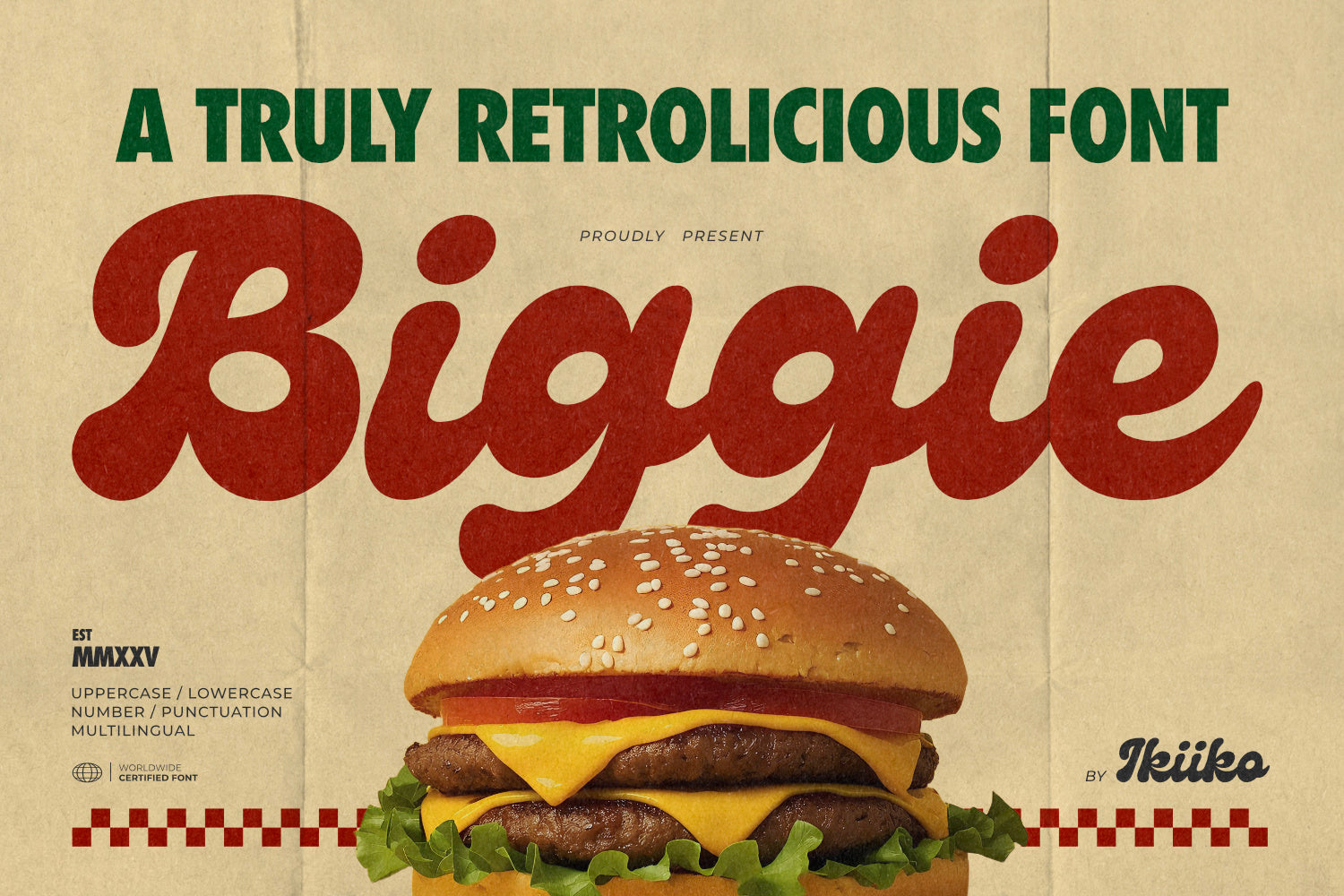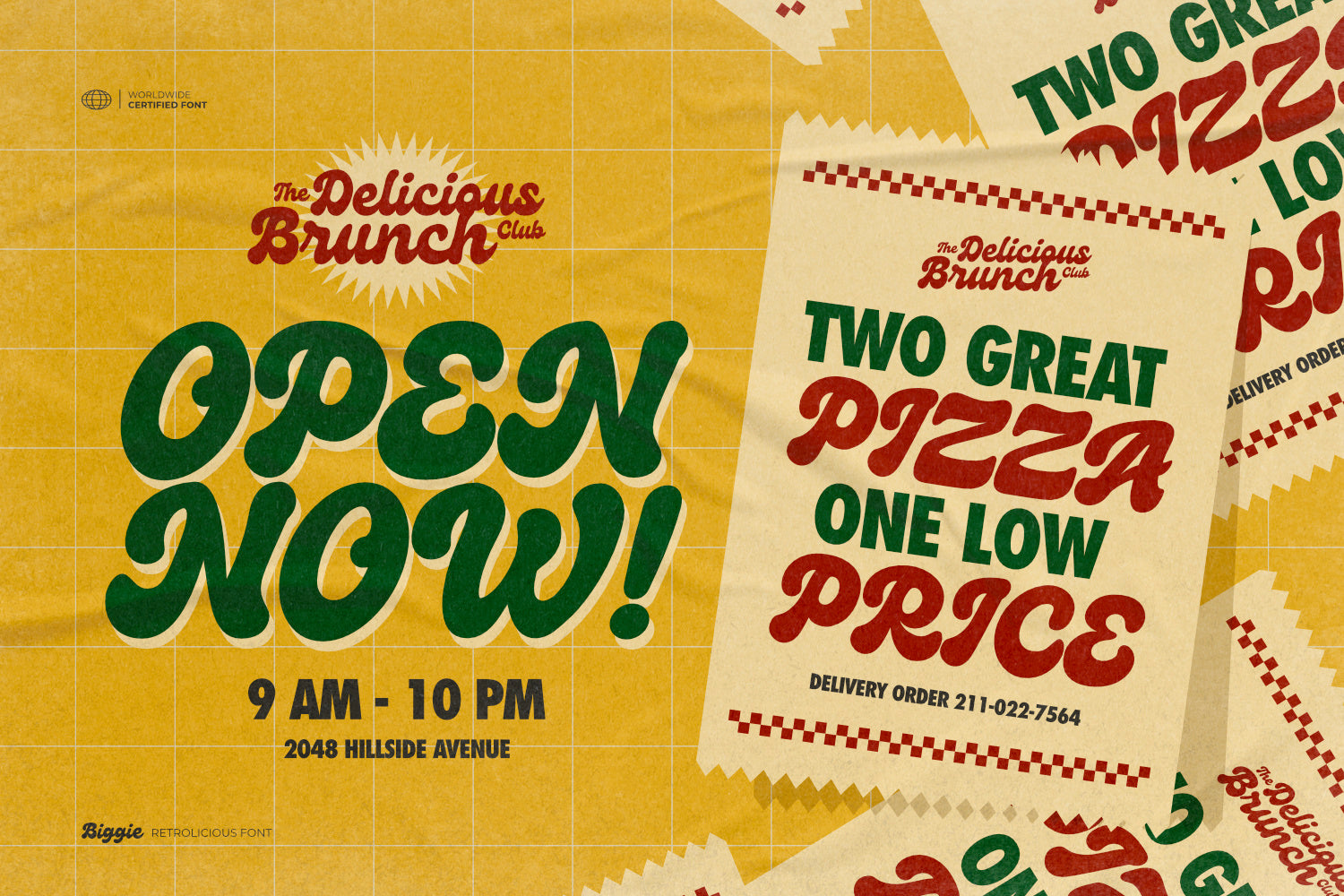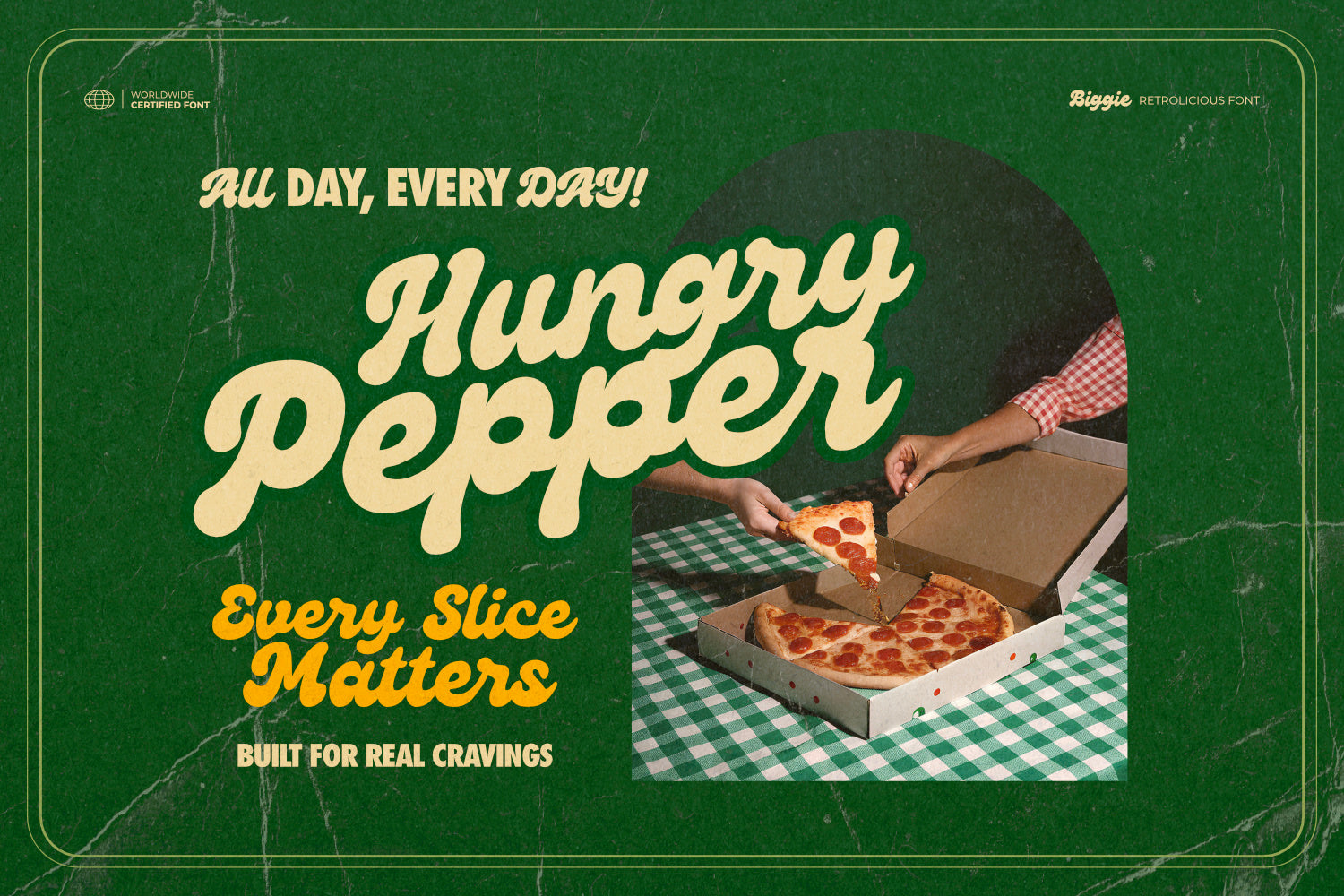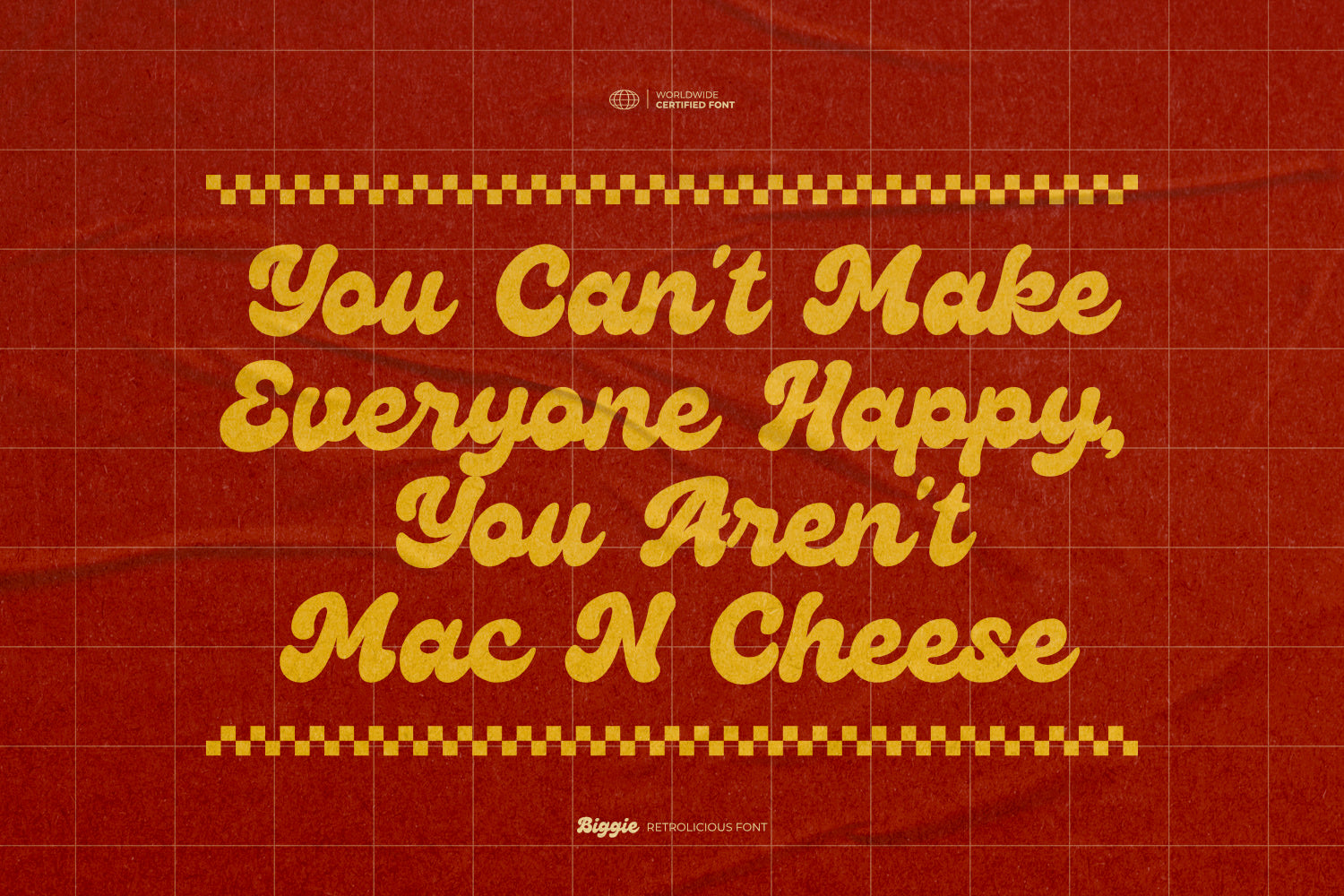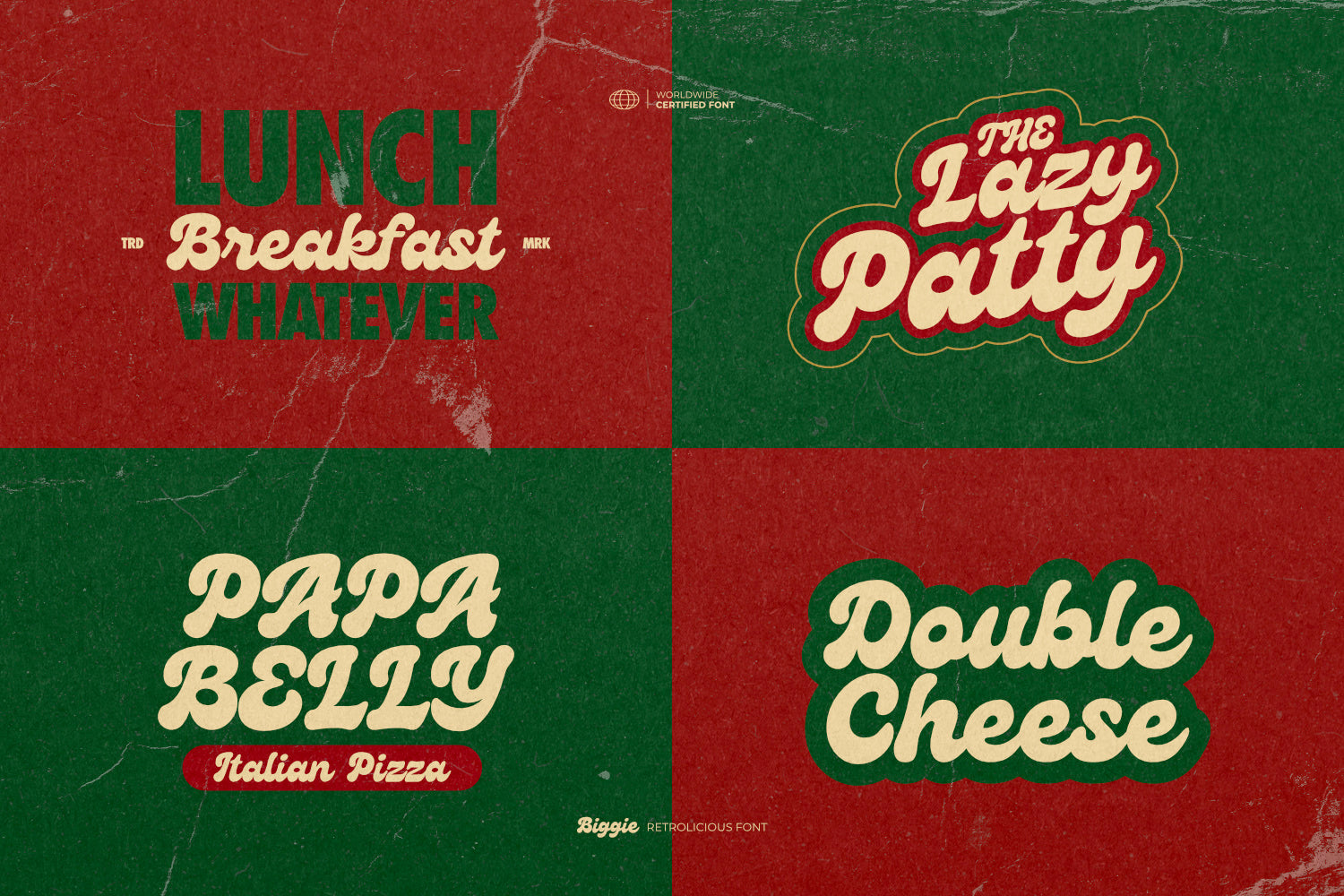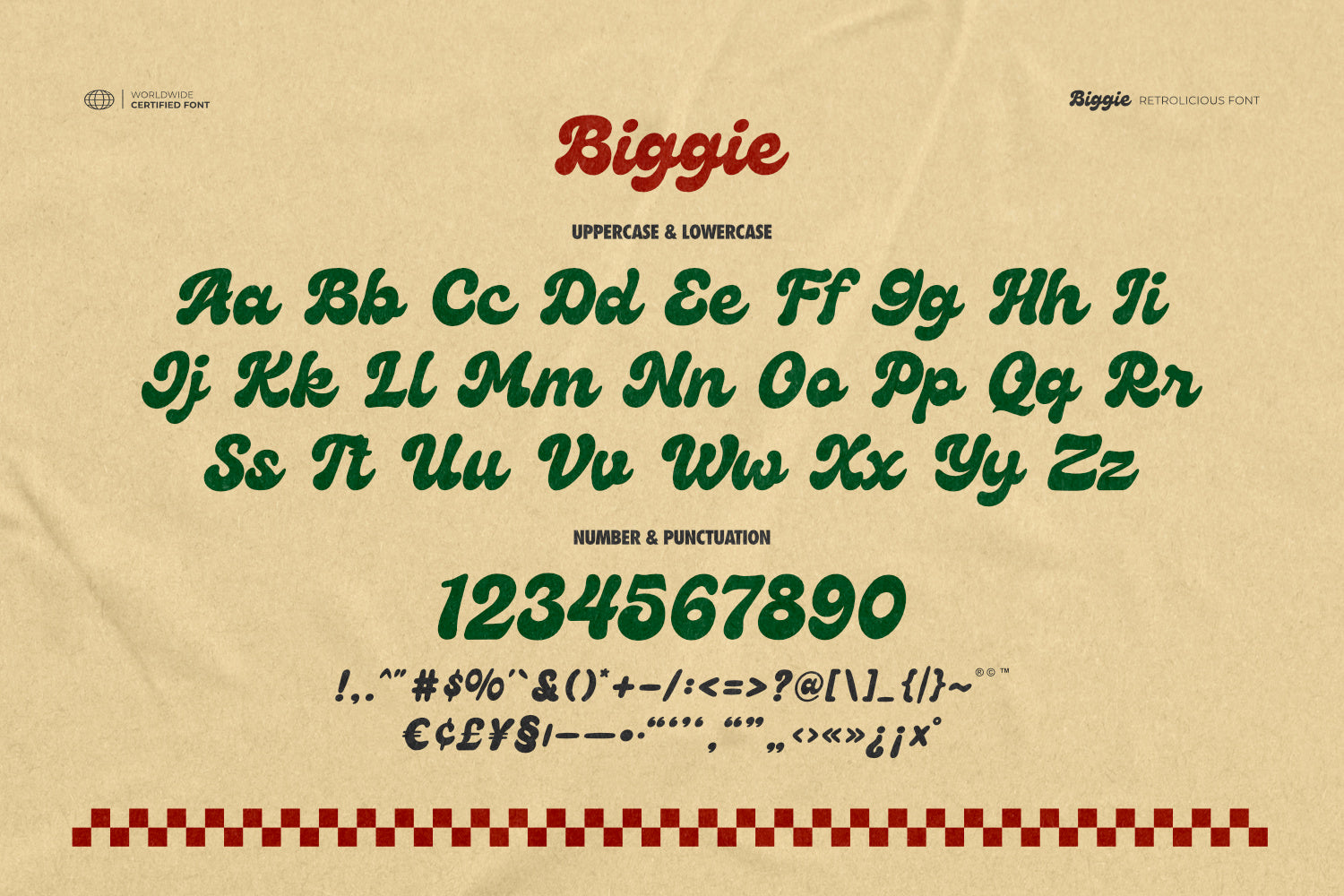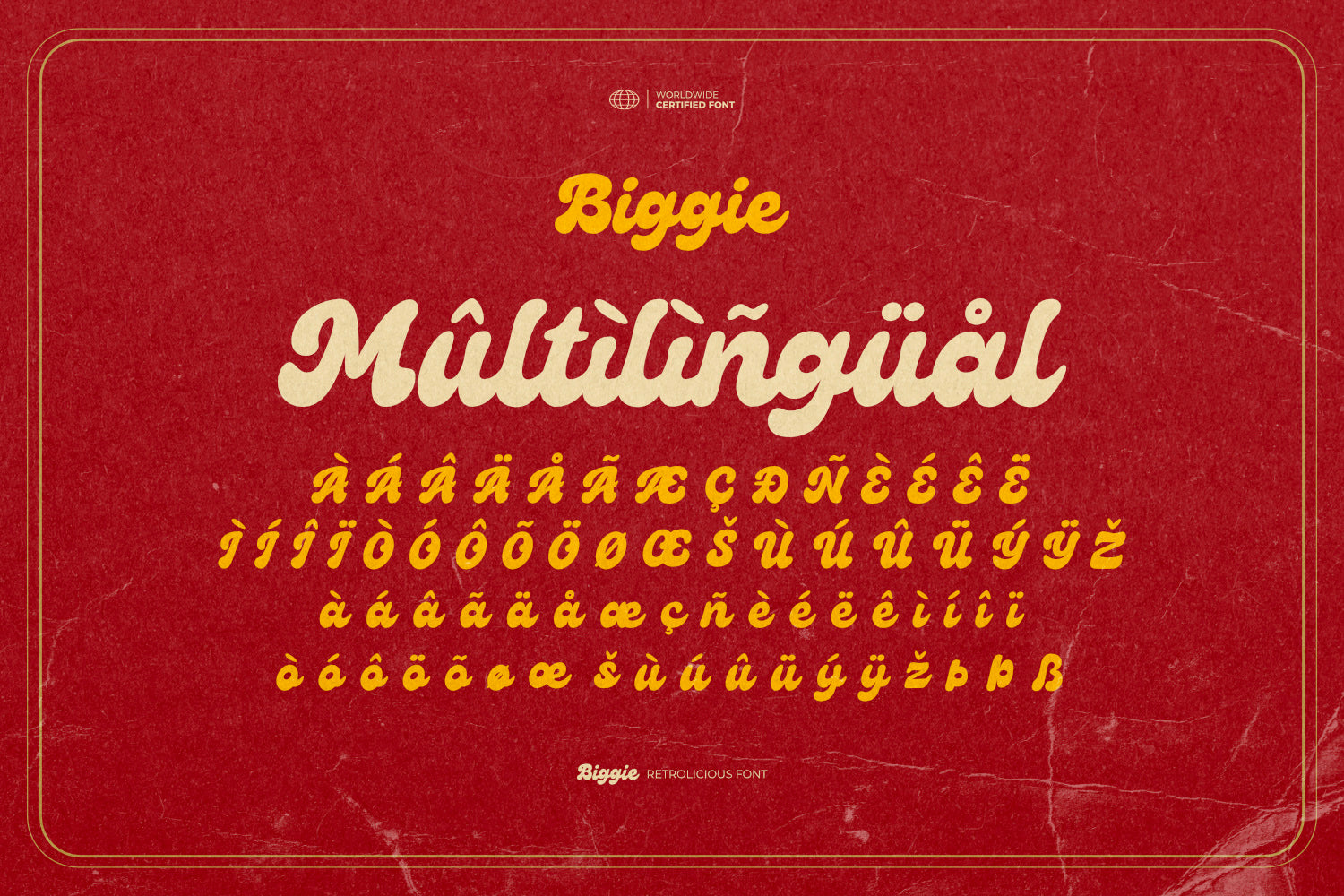
Proudly Present Biggie - Retrolicious Font, created by ikiiko.
Biggie is a hipster-charged, edgy display type that drips with retro cool and delicious attitude. Inspired by 80s retro posters and funky diner signage, this bold and fancy script font brings instant boogie energy to your designs. Every curve is packed with playful vintage flavor and loud vibes, making it perfect for logos, posters, branding, merch, packaging, and social media that crave a nostalgic yet fresh punch.
Built for creatives who love character and impact, this font is easy to use and instantly stands out, helping your messages feel more alive, expressive, and unforgettable. Biggie delivers smooth rhythm, eye-catching flow, and irresistible character — a true retro statement for designers who want their typography to taste as good as it looks.